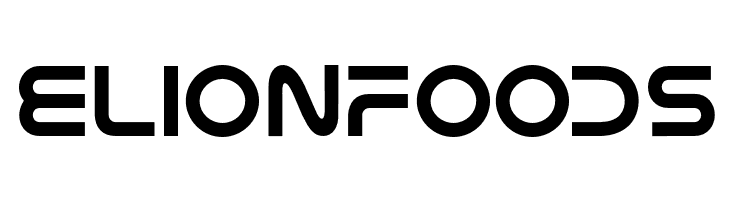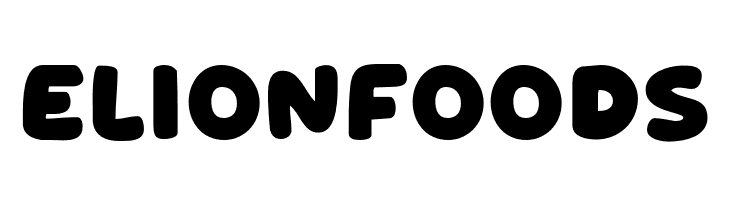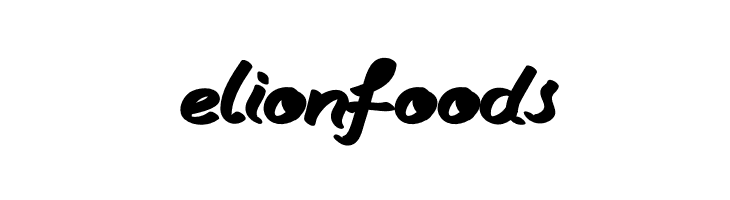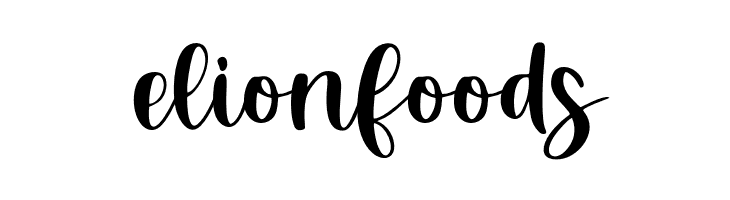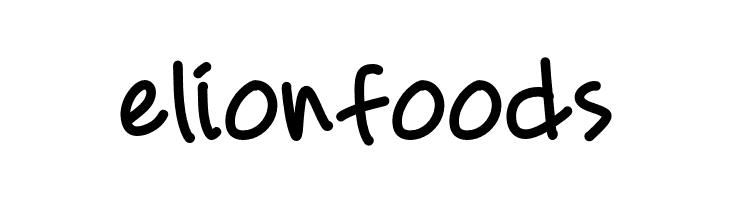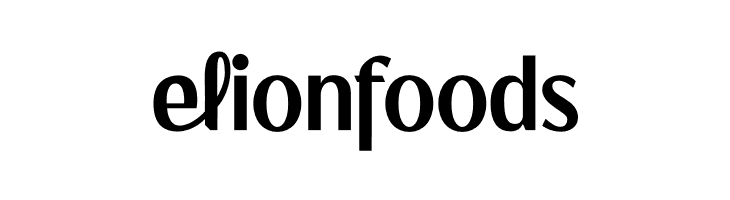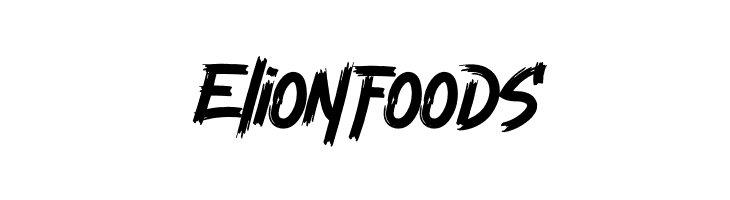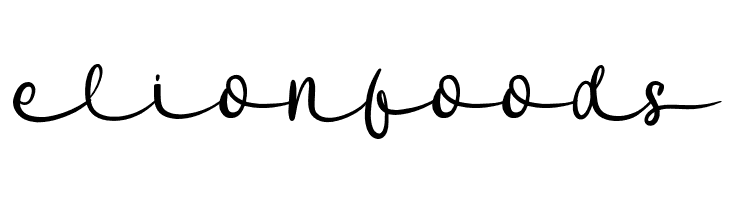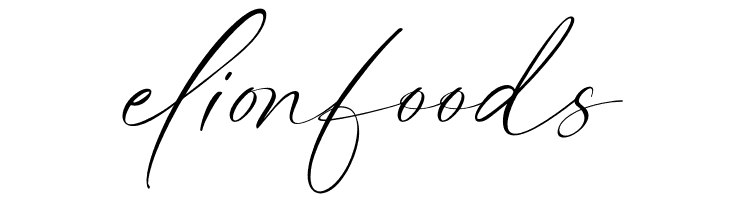
A modern, geometric font with bold lines and rounded edges, perfect for futuristic designs.
A playful, bold font with rounded, bubbly characters.
A bold, expressive script font with flowing, cursive letterforms.
A playful, cursive font with elegant, flowing strokes and a handwritten feel.
Casual handwritten font with a playful style.
Modern sans-serif with high contrast.
Bold brush-style font with dynamic strokes.
Playful handwritten script font.
Elegant and flowing script font.
A lively, handwritten font with a calligraphic flair and dynamic strokes.